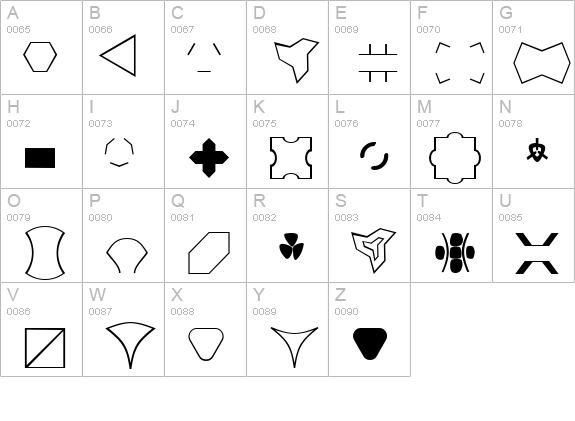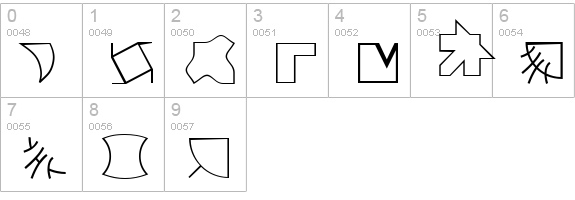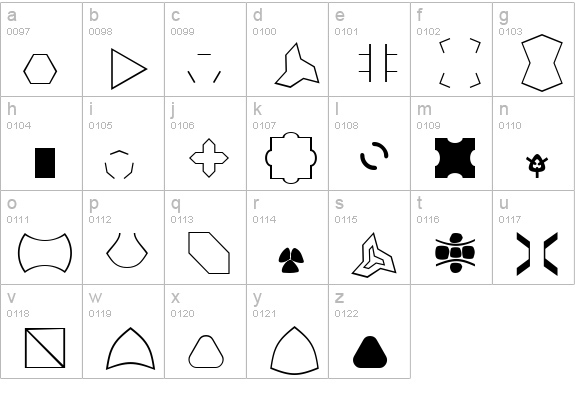
XPatCzeckerz Font Details
XPatCzeckerz font is a unique and stylish typeface that combines modern design elements with a touch of creativity. This versatile font is perfect for a wide range of design projects, from branding to social media graphics. With its clean lines and bold strokes, XPatCzeckerz font is sure to make your text stand out and grab attention. What's even better is that XPatCzeckerz font is completely free to download at FontsMarket.com. This means you can easily access this stunning font and use it in your projects without any cost. So why wait? Download XPatCzeckerz font today and add a touch of elegance and sophistication to your designs.